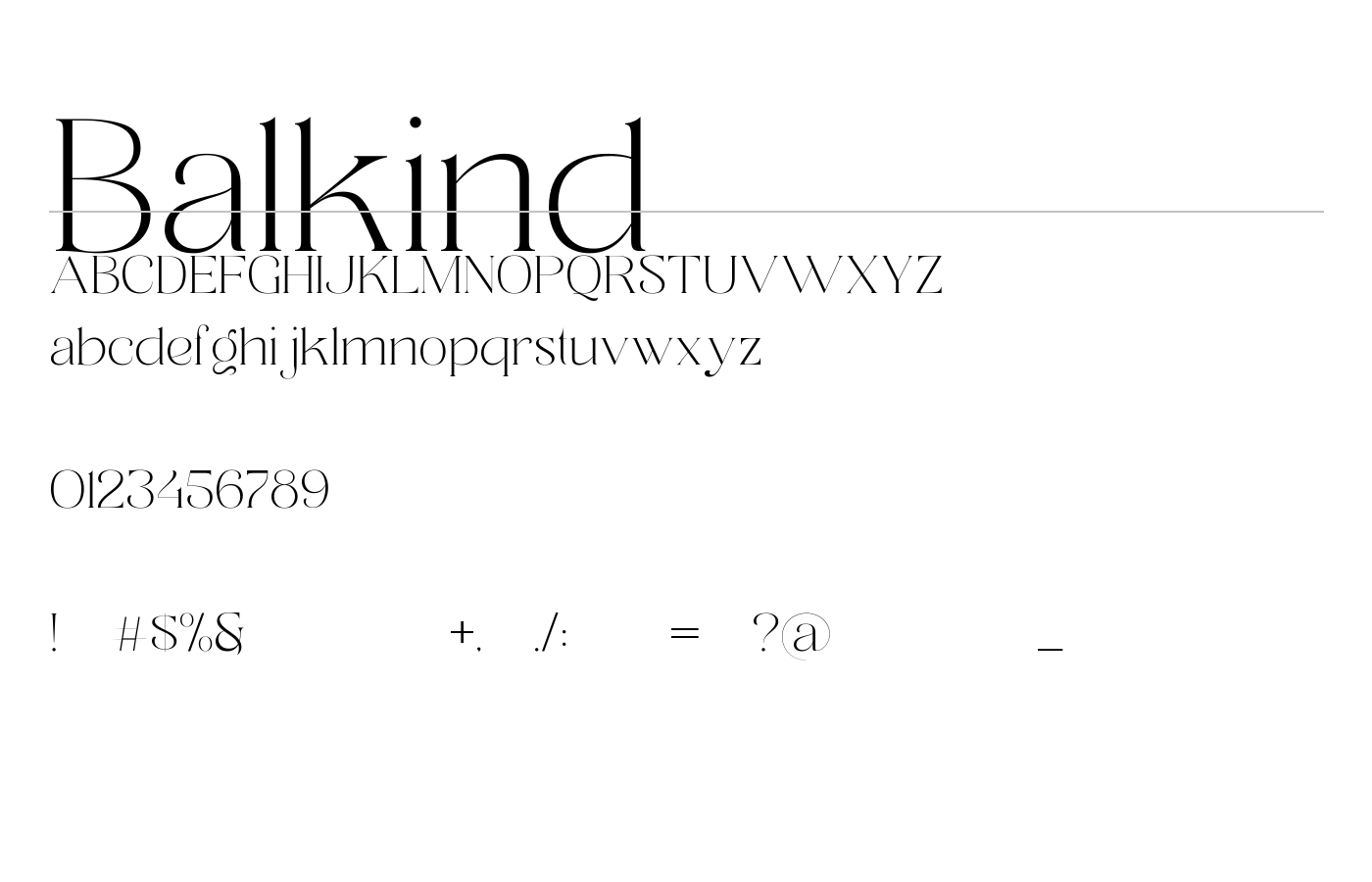
Balkind is an elegant serif font characterized by its high contrast between thick and thin strokes and delicate, thin serifs that give it a refined, sophisticated look. Its tall x-height, unique letterforms with distinctive curves, and fine details make it ideal for luxury branding, editorial headlines, and fashion-related designs where a classy, graceful impression is desired. This font works best in contexts that require a touch of elegance and modernity, lending a stylish and timeless feel to any project.
Balkind Font
About Balkind Font
| Font family | Balkind Font |
| Designer | Putu Eka Hermawan |